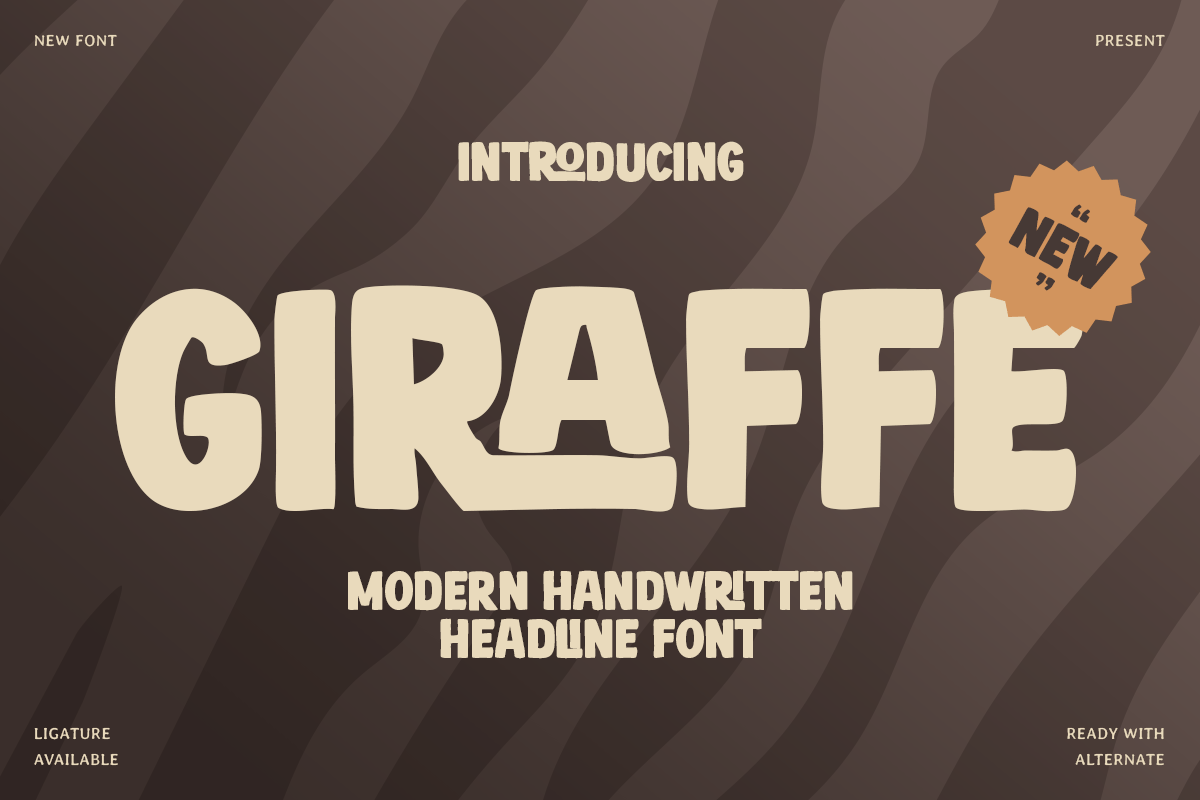
Giraffe
-Bold Funny Handwritten FontGiraffe - Bold Funny Handwritten Font
GIRAFFE is a modern bold funny handwritten headline font crafted to bring playful energy and cheerful personality to your typography. With thick handwritten strokes, lively rhythm, and a friendly visual character, this typeface creates a fun tone that feels expressive, modern, and instantly eye-catching.
Designed for headline-driven layouts, GIRAFFE works beautifully across kids branding, posters, packaging, school projects, social media graphics, story titles, stickers, product labels, website headers, and promotional visuals. Its bold handwritten structure keeps every word readable while adding a humorous, lighthearted charm across both digital and print design.
Whether you’re creating playful brand identities, designing cheerful campaign graphics, building fun educational content, or crafting standout headlines with a casual handwritten feel, GIRAFFE provides a bold creative foundation that makes your typography feel lively, warm, and unforgettable.
Inspiration Behind GIRAFFE
GIRAFFE is inspired by playful marker handwriting and fun headline typography—where thick strokes, natural movement, and cheerful personality make every word feel more alive. The design focuses on bold handwritten rhythm and expressive friendliness to support creative branding and kid-friendly visuals with a modern, joyful spirit.
GIRAFFE Font Features:
Bold handwritten letterforms with funny playful character
Perfect for headlines, posters, kids branding, and cheerful design
Strong readability for eye-catching titles and casual layouts
Friendly handwritten rhythm for expressive modern typography
Playful logos, wordmarks, and fun brand identity systems
Kids projects, school materials, and educational design
Posters, story titles, stickers, and cheerful promotional layouts
Packaging, labels, and casual product branding
Social media graphics, website headers, and creative campaign visuals
Make every headline feel fun and unforgettable with GIRAFFE—a bold funny handwritten font made for playful modern design. ✨